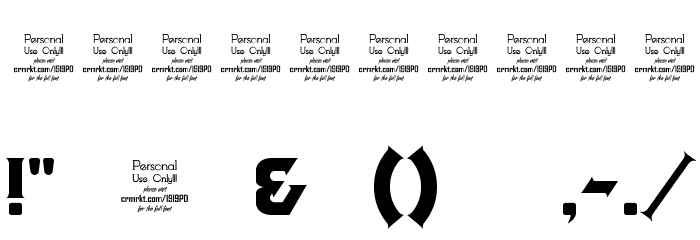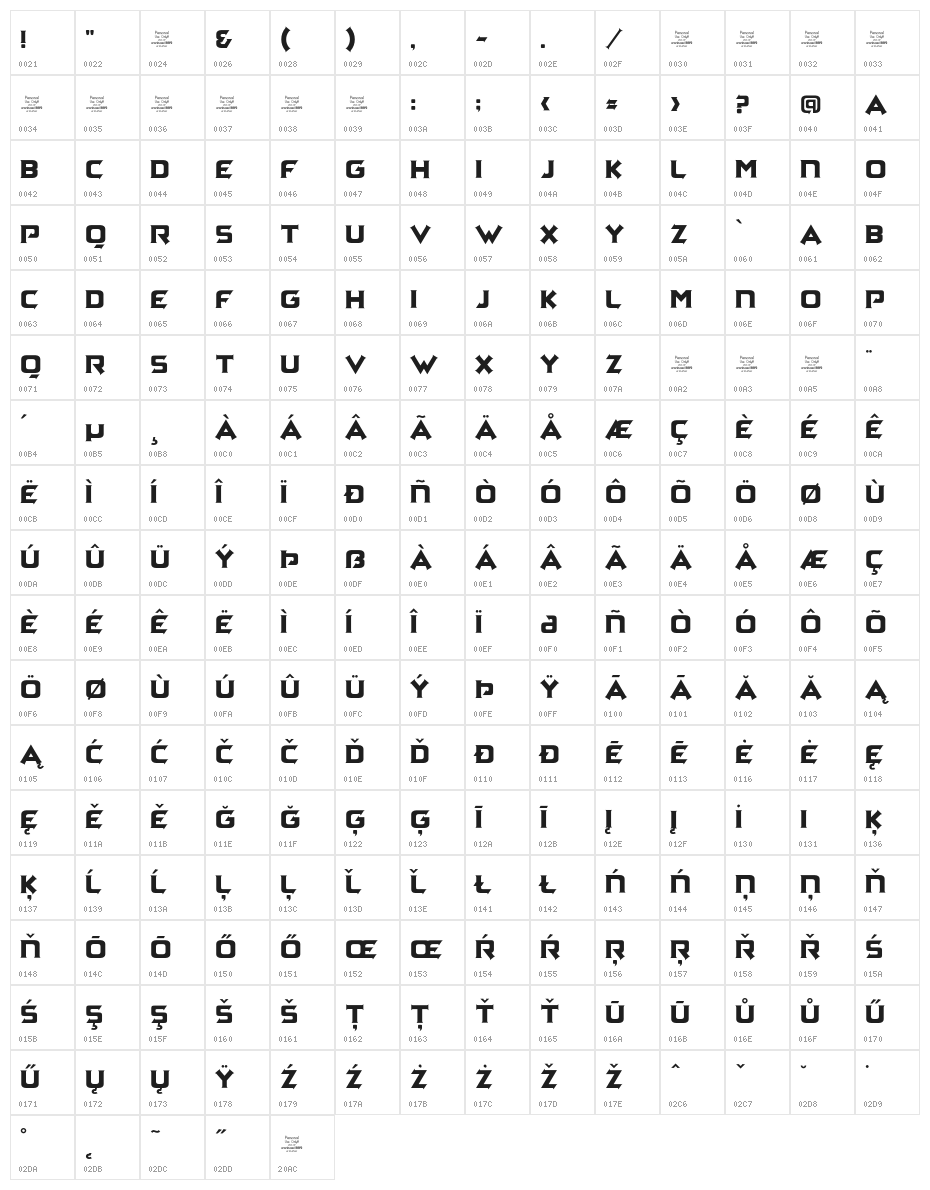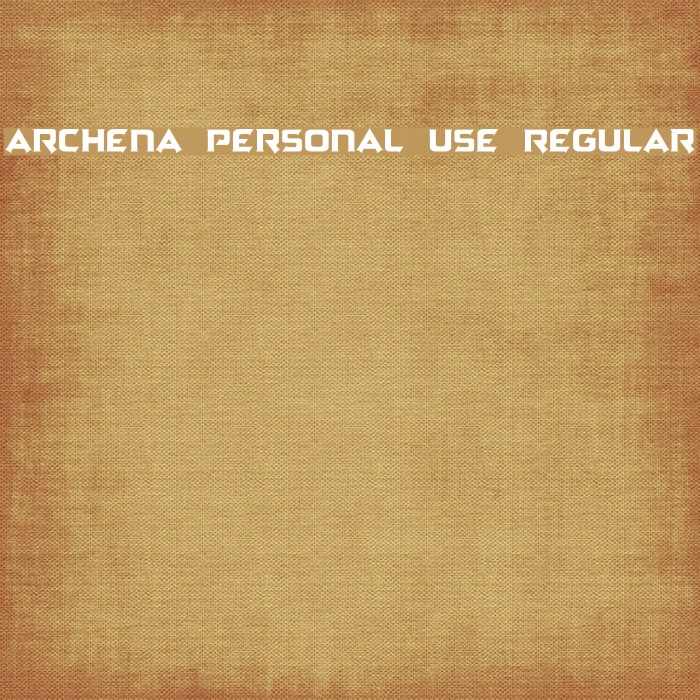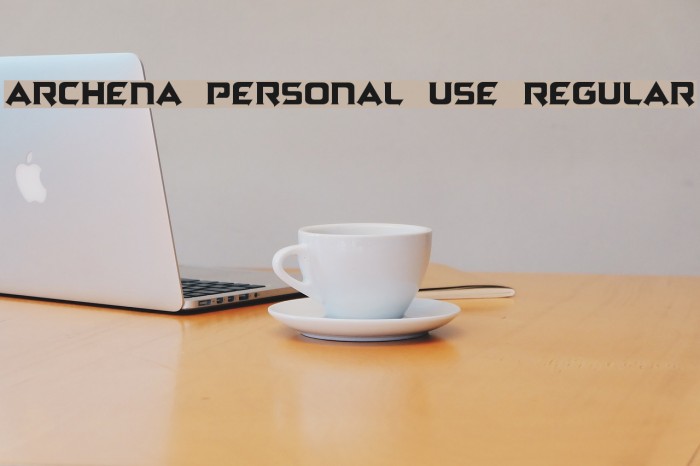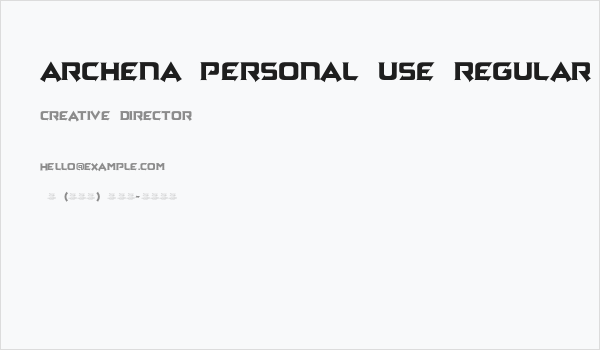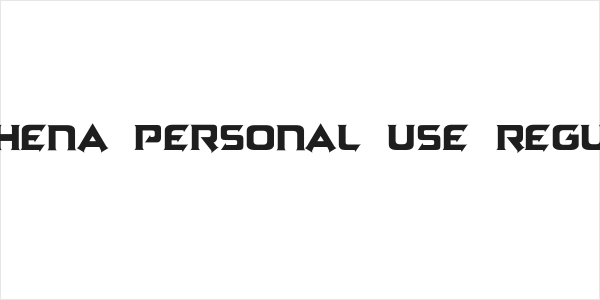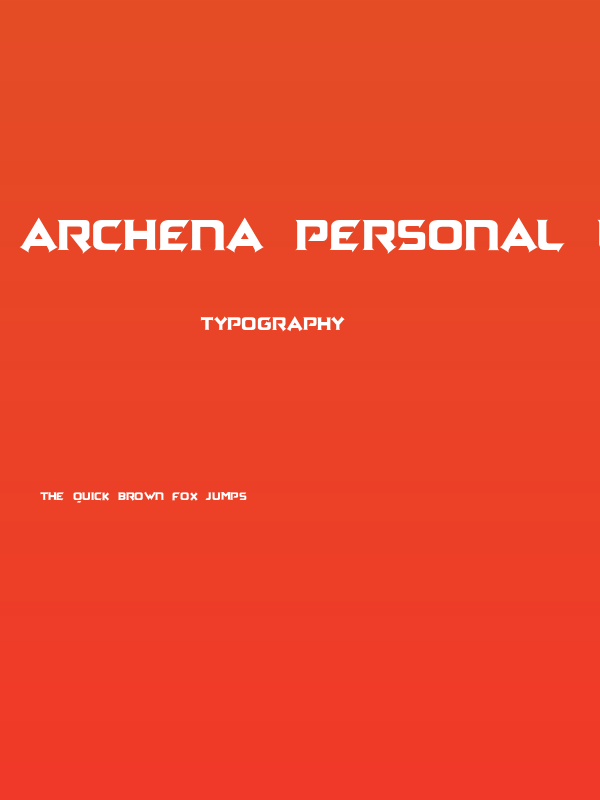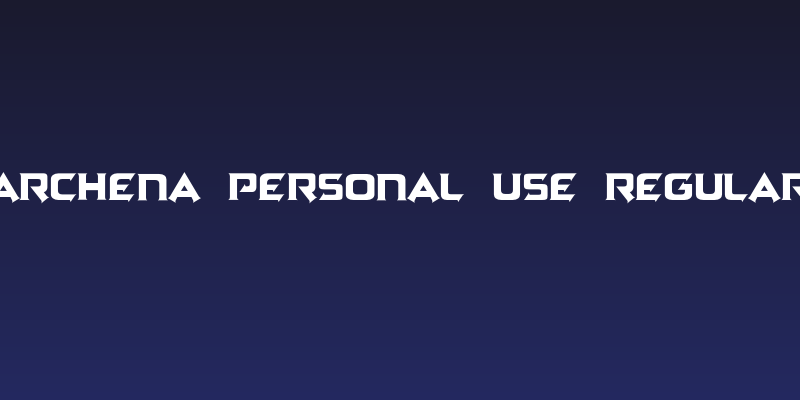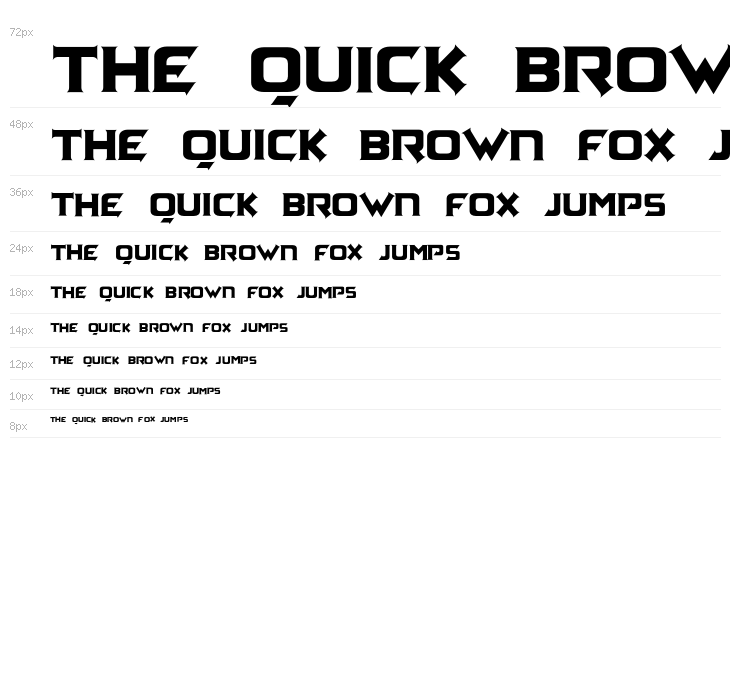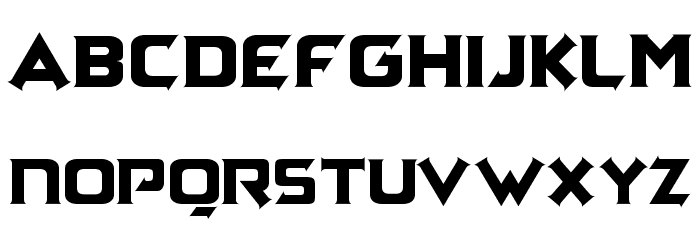
Archena Personal Use Regular Font
Archena Personal Use Regular Description
This font features a bold, angular design with sharp edges and geometric shapes, giving it a futuristic and dynamic appearance. The uppercase and lowercase letters maintain a consistent style, characterized by their strong, solid lines and unique cut-out details that add a sense of movement and energy. The numbers and special characters follow the same design principles, ensuring a cohesive look across all elements. This font's distinct style makes it stand out, making it suitable for projects that require a modern and edgy aesthetic.
| Proposed Projects | Ideal for sci-fi themed posters, video game titles, branding for tech companies, and any project seeking a modern, edgy look. |